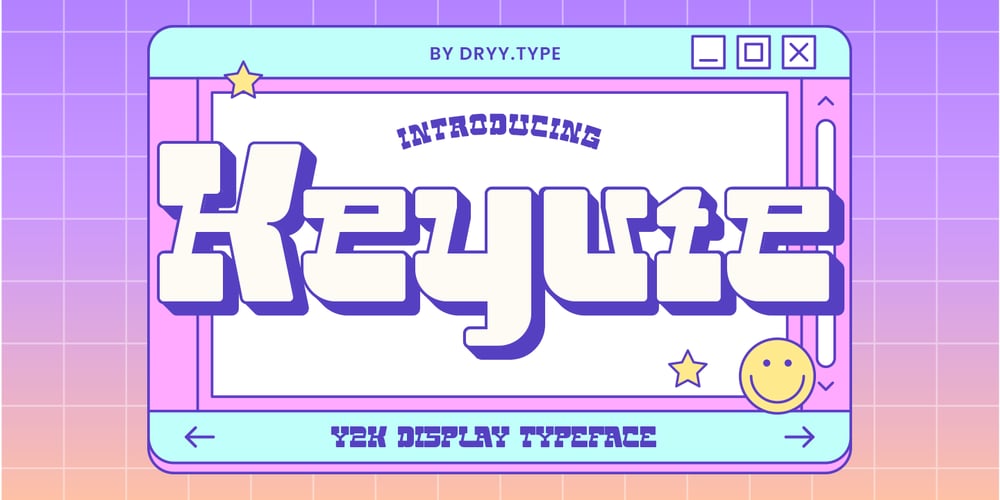
Keyute
Keyute font
Keyute Font Family was designed by Rian Dryana and published by Dryy Type. Keyute contains 3 styles and family package options. Keyute Typeface is a cute and fun font. A font inspired by the current K-POP trend, this font I created is very much used this year & is very versatile, it goes well with various designs, elevating it to the highest level. Add this font to your favorite creative ideas and see the results!Features: Uppercase, Lowercase, Ligature & Multilingual Support3 Different StyleThere it is! I really hope you enjoy it